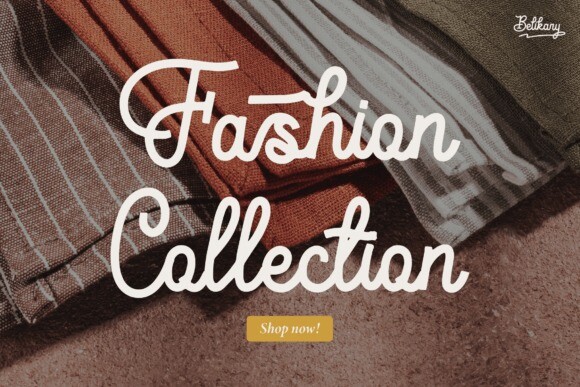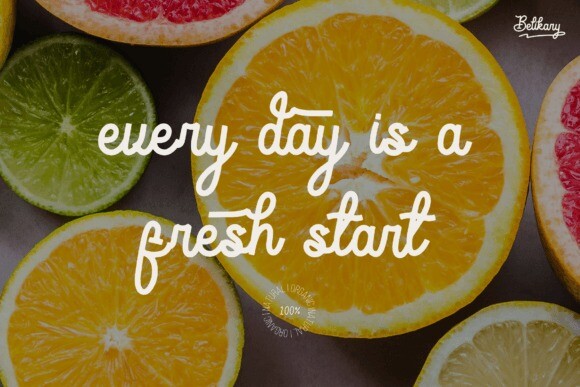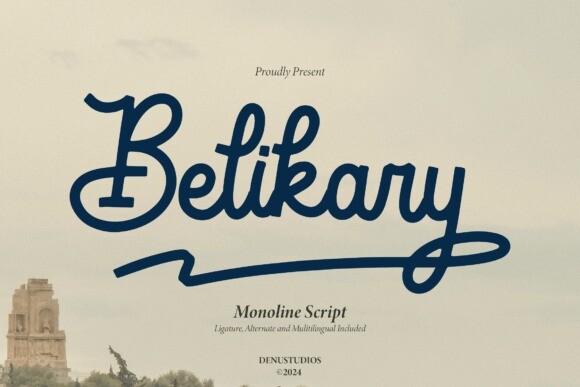
Belikary Font
Designer: Denustudios
Belikary Font is a stylish monoline script font with smooth, flowing letterforms. Its clean and elegant design makes it perfect for projects that need a modern, yet timeless look. Ideal for logos, quotes, and invitations, it brings a personal touch to any design.